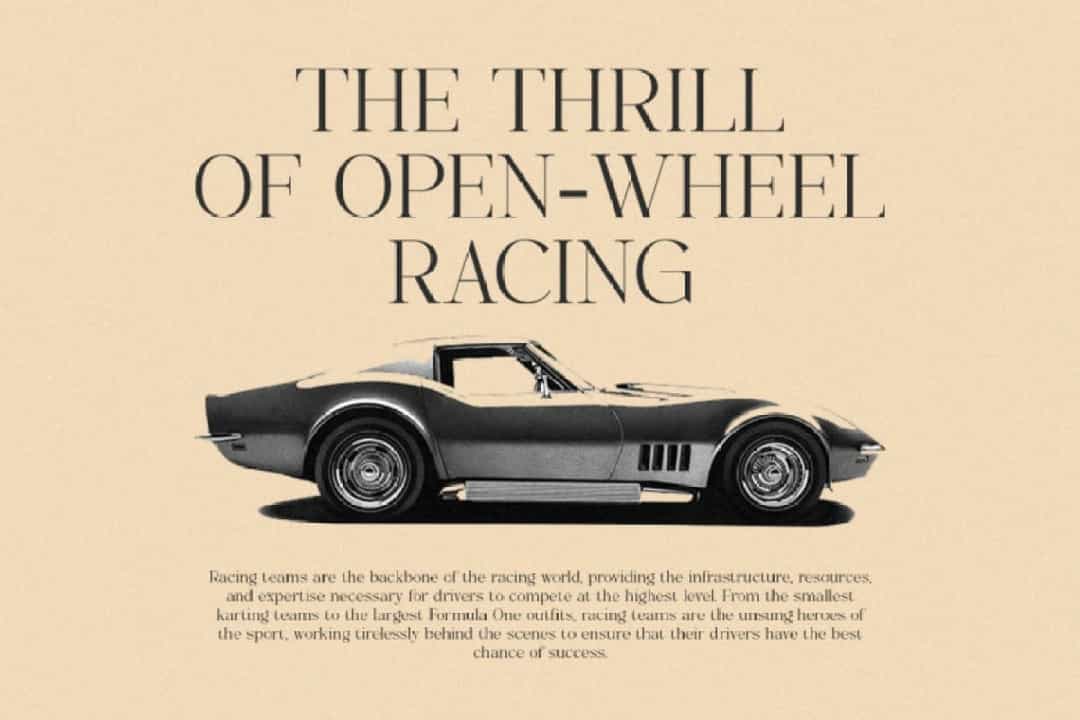
Caster is a modern chic font in the Serif style. It is giving a royal touch to your designs with elegance. Due to the clean and elegant alternates and ligatures, Caster is ideal for any graphic design project. For all those who are in the process of designing something, may it be a logo, poster, or even a website, this font is perfect.